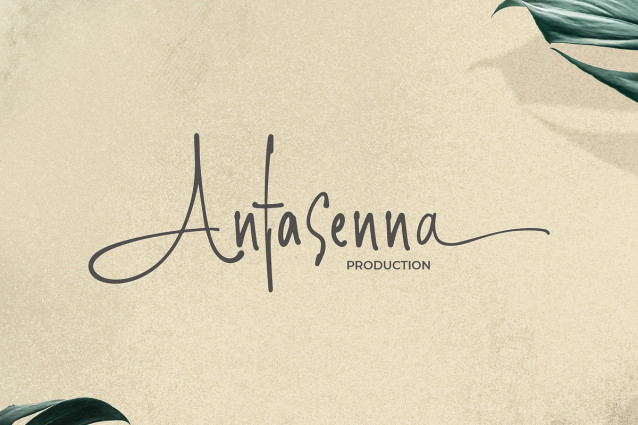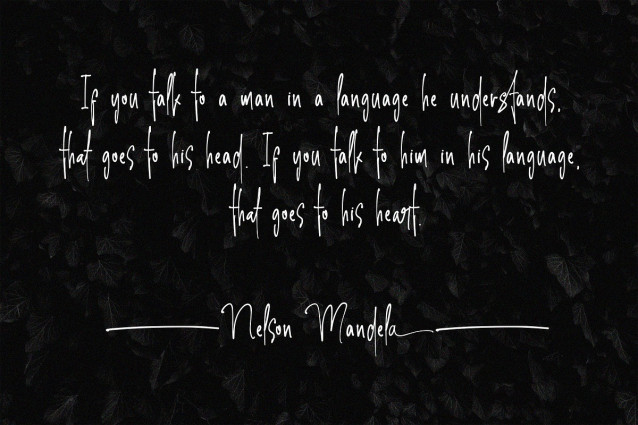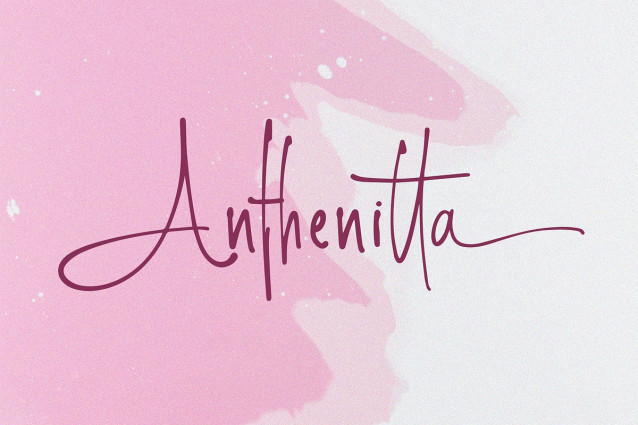
Anthenitta Handwriting Font
Anthenitta Handwriting Font a captivating handwritten font that embodies a unique signature style. This elegant typeface stands out with its distinctive character shapes, offering a touch of personal flair to any graphic design. Perfect for adding a sophisticated, handwritten charm to your product labels, invitations, branding materials, and more.